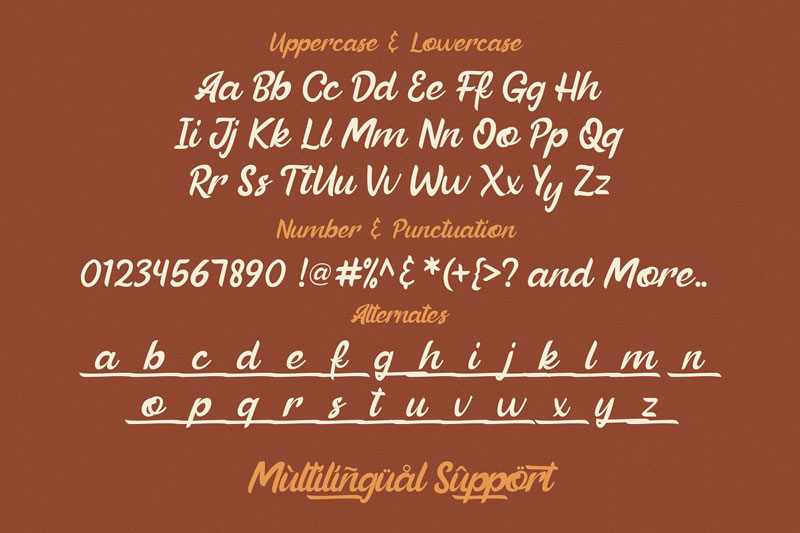
Review Of Beautiful Vibes Font Ideas
Review Of Beautiful Vibes Font Ideas. Download the beautiful vibes font by stringlabs. Get inspired by its unique charm!
Beautiful vibes takes the script font in a different direction, with an emphasis on practicality and uniformity, and with the reader’s needs at the forefront—this. Click to find the best 67 free fonts in the vibes style. Download the beautiful vibes font by stringlabs.
Beautiful Vibes Is A Gorgeous And Nostalgic Script With A Retro.
Beautiful vibes is perfect for vintage lovers,. Web beautiful vibes is a bold script font with unique design taste and a classic retro style of the 80s, trendy, vintage, and sporty. Personal use free 1.3 million.
Get Inspired By Its Unique Charm!
Download the beautiful vibes font by stringlabs. This type of font has unique characteristics with. Beautiful vibes is perfect for vintage lovers, besides this font is also perfect if used for brands such as:
Beautiful vibes is licensed under the following terms: Every font is free to download! Web beautiful vibes is a bold script font with unique design taste and a classic retro style of the 80s, trendy, vintage, and sporty.